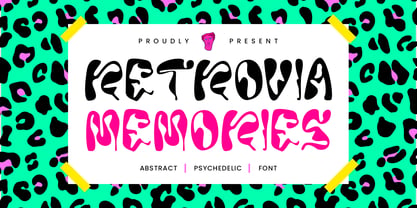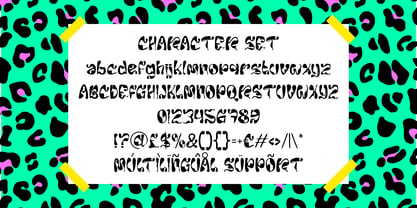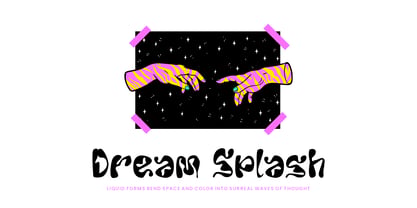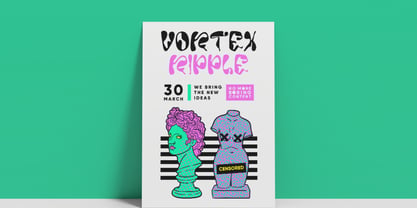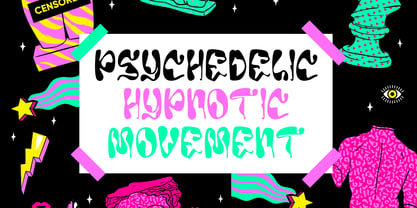
Retrovia Memories
von Shanaf
Die Schriftfamilie Retrovia Memories wurde von Yesie Erma Yunita entworfen und von Shanaf veröffentlicht. Retrovia Memories enthält 1 Stile. Mehr über diese Familie
Retrovia Memories – Abstract Psychedelic Font is a mind-bending, fluid display typeface that captures the nostalgic chaos of retro art with a modern twist. Every character appears as if it’s melting, dripping, or swirling in a vibrant visual hallucination—perfectly aligned with the psychedelic aesthetic. This font blends bold abstract forms with high-contrast curvature and organic liquidity, making each letter feel alive. With uppercase and lowercase styles that feel both rebellious and expressive, Retrovia Memories is ideal for designers who want to embrace unconventional creativity. The font’s dual-color applications—black for impactful messages and neon hues for energetic bursts—create a visual rhythm that is impossible to ignore.
Set against loud, electric backgrounds and experimental graphic compositions, Retrovia Memories thrives in posters, album art, edgy event flyers, and youth-oriented branding. It lends a distinct identity to fashion editorials, surrealist merchandise, and avant-garde digital projects. With full multilingual support and unique glyphs, it’s not just a typeface—it’s an attitude. Retrovia Memories isn’t here to blend in; it’s here to stand out, electrify, and challenge design boundaries.
Designer: Yesie Erma Yunita
Foundry: Shanaf